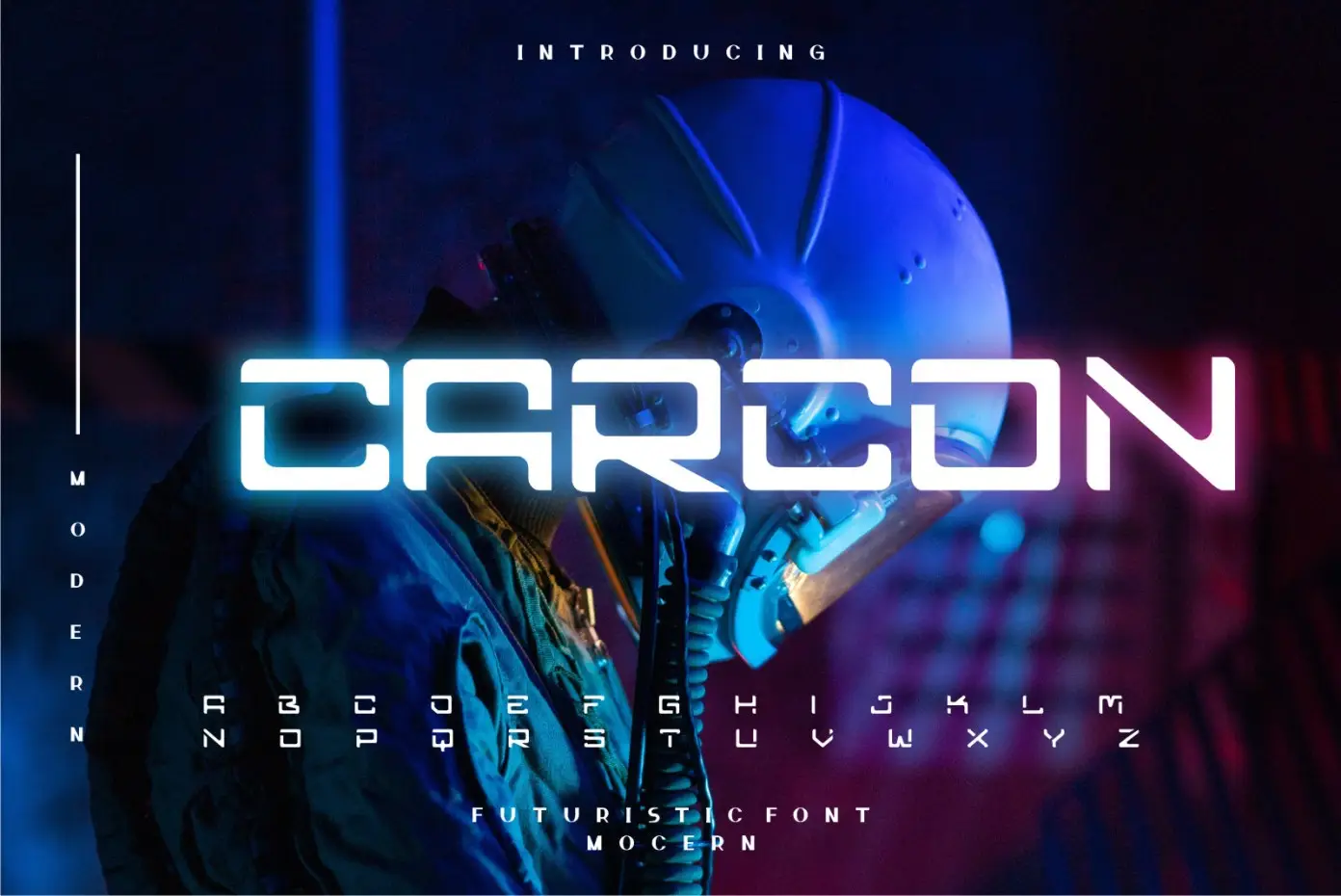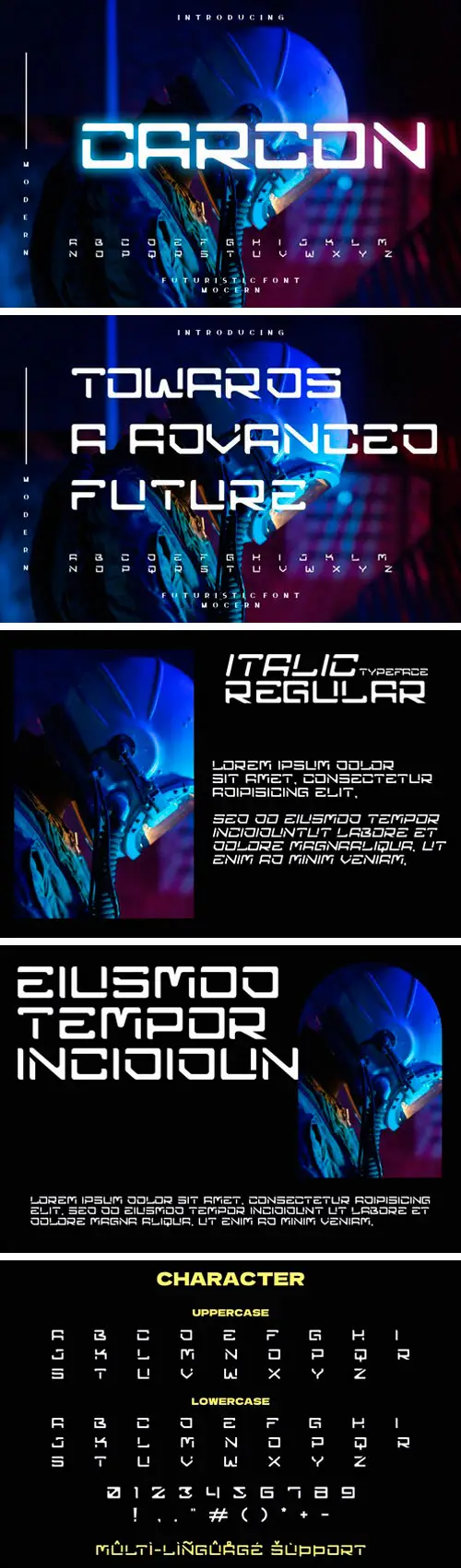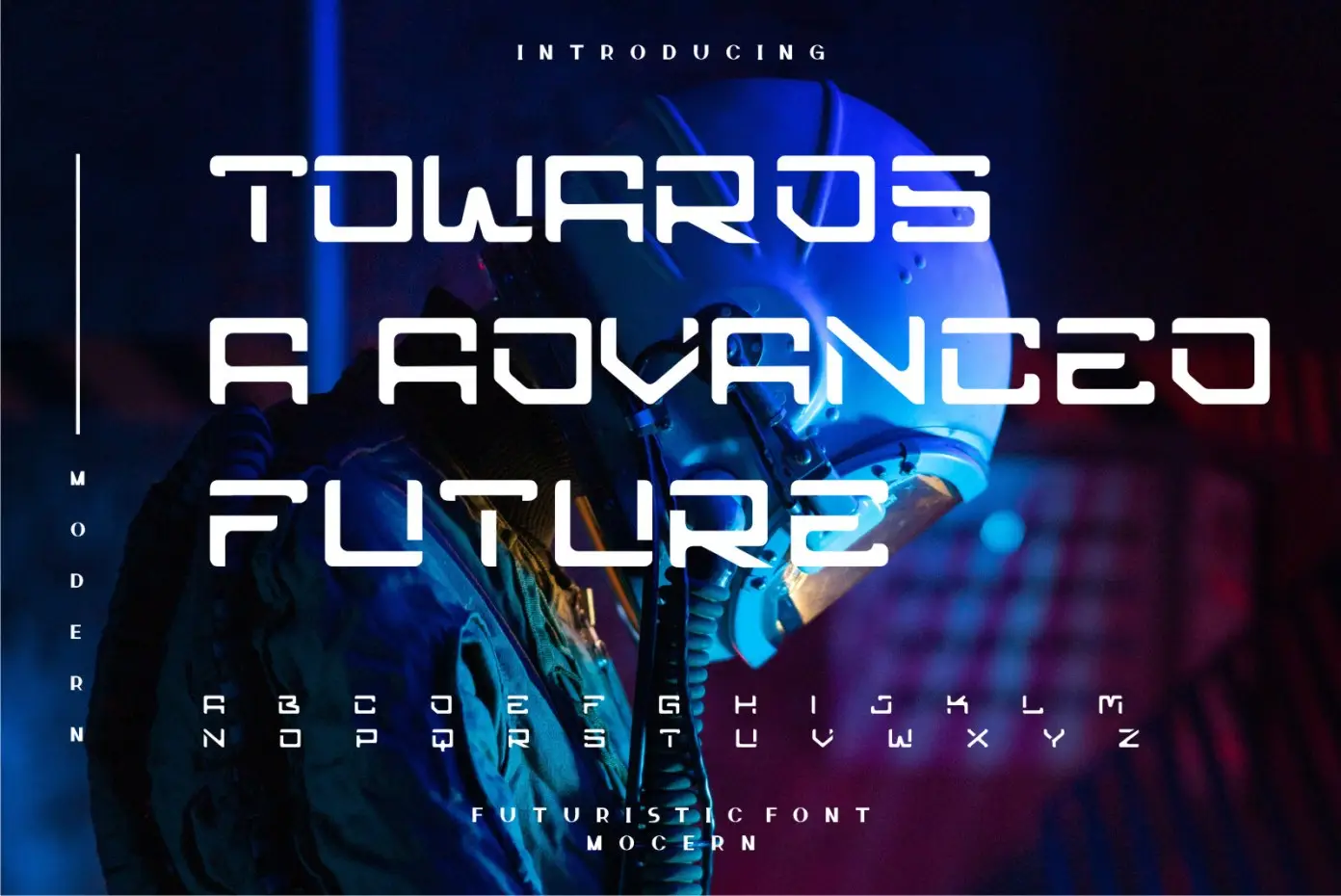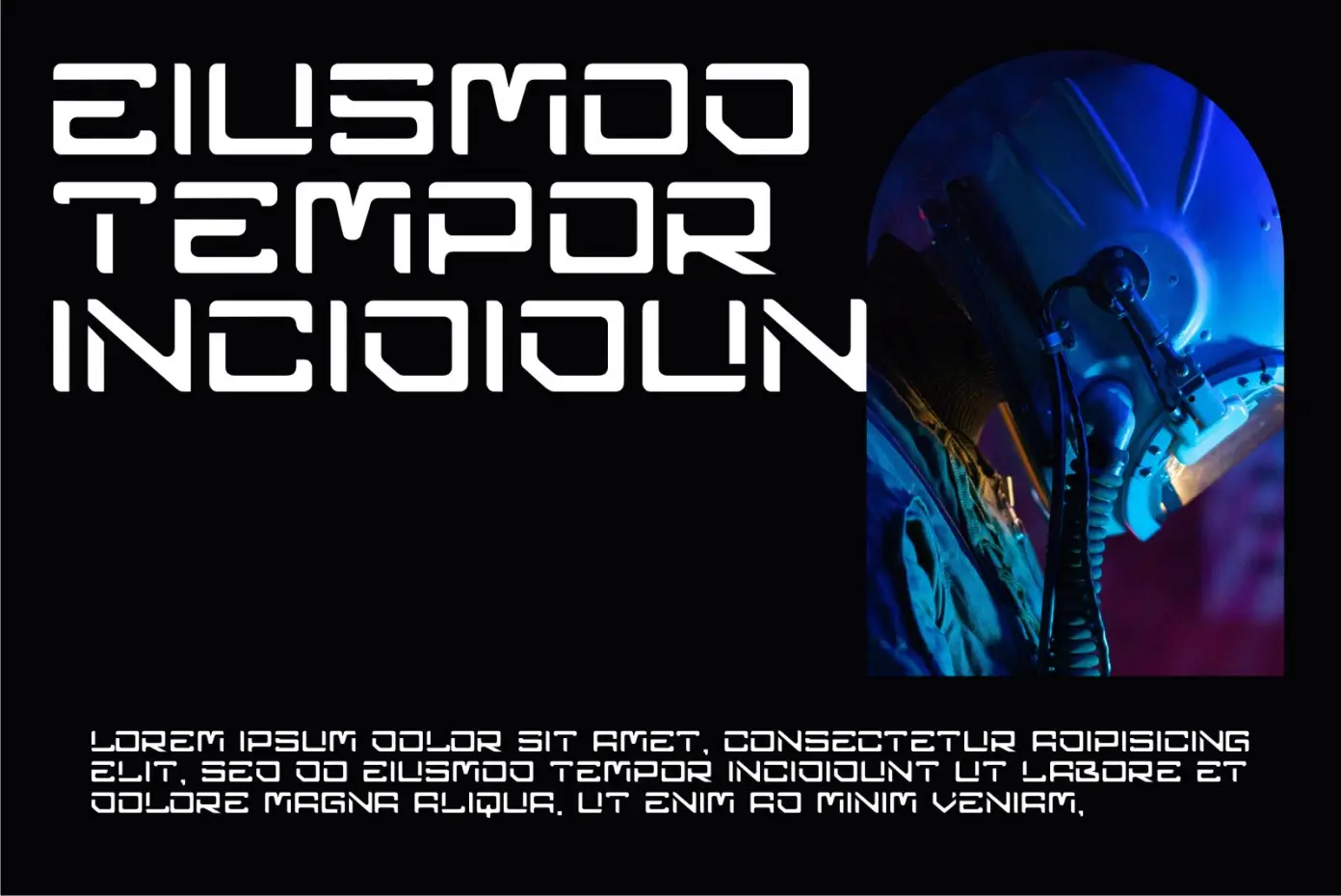
Carcon Display Font
The Carcon Display Font is a striking typeface designed to capture attention in various applications. With its unique character and bold presence, this font is perfect for branding, logos, and headlines that need to stand out.
• Ideal for use in advertising and promotional materials.
• Great for web design, ensuring readability and impact.
• Use in print media for eye-catching headlines.